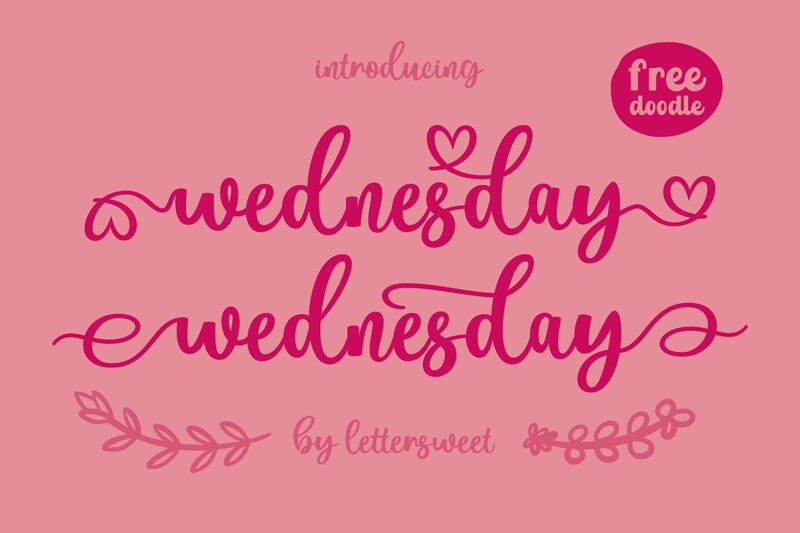
Wednesday-Regular
Wednesday, designed by Lettersweet Studio, exudes a unique charm that can only be found in the authenticity of a handwritten font. Its semi-light weight imparts an airy, delicate quality reminiscent of elegant calligraphy yet maintains an approachable warmth that invites readers into the text.
The aesthetic appeal of Wednesday lies in its balanced blend of casual spontaneity and structured artistry, making it incredibly versatile for various creative projects. From personal branding to event invitations or product packaging, Wednesday is poised to add a touch of personality and sophistication wherever it graces the page.